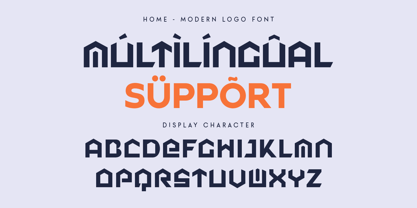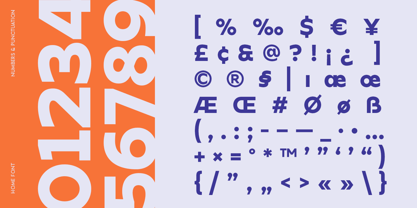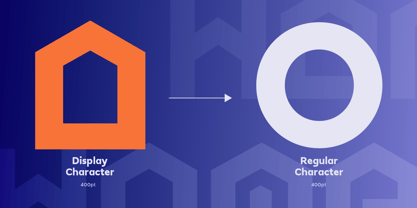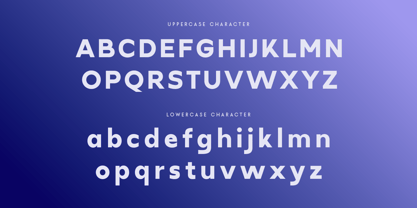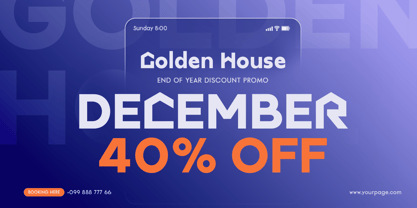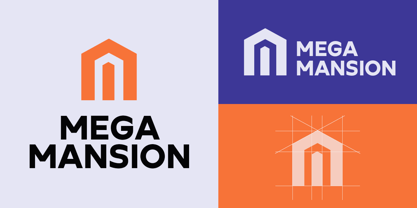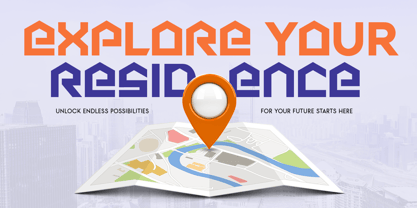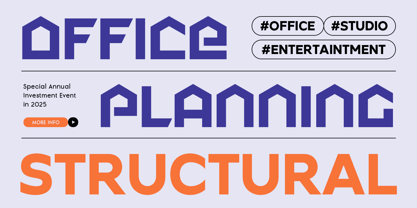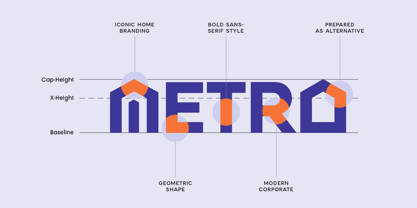
HOME is a modern logo font crafted for designers who value simplicity, balance, and timeless style. With its clean geometry and refined proportions, it’s perfect for creating strong visual identities, minimalist packaging, and modern corporate branding.
The font embodies calm sophistication and universal appeal, making it ideal for lifestyle brands, architecture firms, digital products, and editorial layouts. Its smooth, harmonious shapes convey clarity and confidence — perfect for modern brands that prioritize elegance and versatility.
Whether you’re designing a brand logo, website, or product packaging, HOME delivers precision and visual balance that feel modern yet approachable. Its simplicity ensures adaptability across both print and digital platforms.
HOME – Modern Logo Font Features
Clean and minimalist letterforms for timeless design
Perfect for logos, packaging, websites, and modern branding
Professional sans serif style with geometric precision
Elegant balance ideal for creative and corporate projects
Uppercase, lowercase, numerals, and punctuation included
Build timeless branding with HOME — the ultimate modern logo font for minimalist, clean, and professional design.